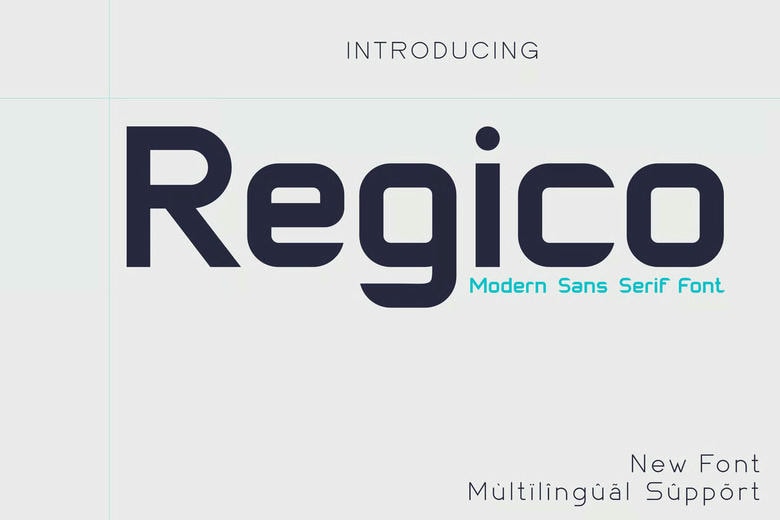
Regico Font
Regico is a bold, high-quality sans-serif display font created by Auliacreative. You can download it for free and use it for personal projects. It works well for elegant logos, branding, travel ads, magazines, beauty products, packaging, quotes, or as a stylish text overlay on any background.
Regico Sans Serif Font